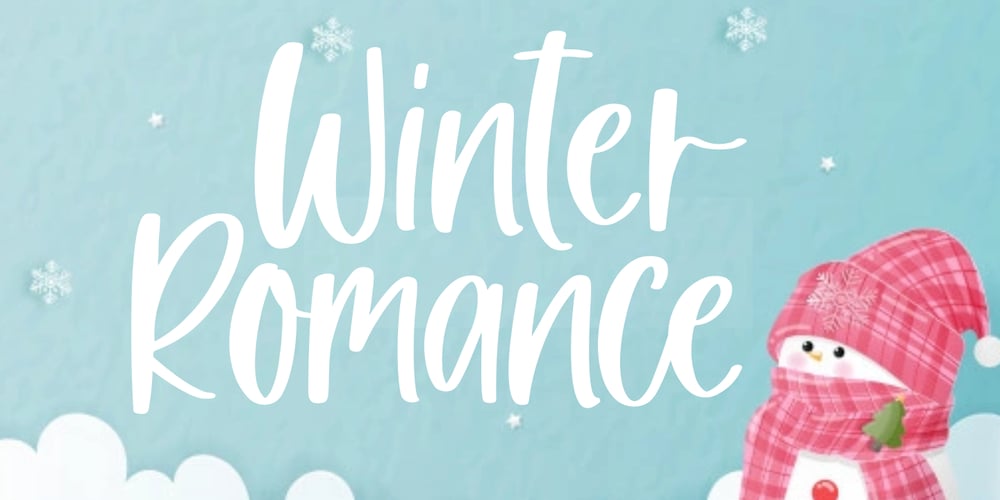
Winter Romance Font Family was designed by Muhammad Fikry and published by Fikryal. Winter Romance contains 1 styles and family package options. Winter Romance is a beautiful handwritten font perfect for crafting, branding, invitation, stationery, wedding designs, social media posts, advertisements, product packaging, product designs, label, photography, watermark, special events or anything.Winter Romance comes with full set of uppercase and lowercase letters, swash alternates, ligatures,multilingual symbols, numerals and punctuation.